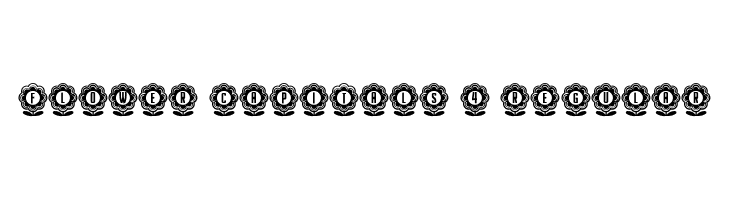
A decorative font with characters encased in stylized flower shapes.
A decorative font with characters encased in floral designs, ideal for whimsical projects.